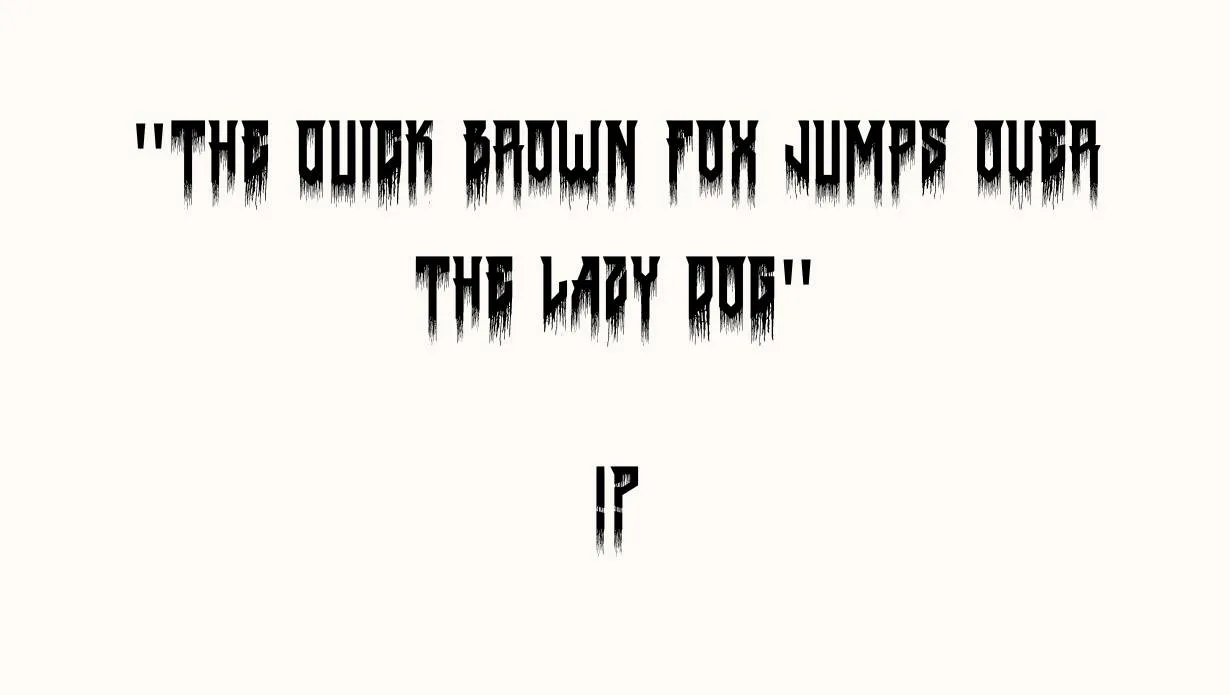
The Death to Metal font is reminiscent of a rebellious anthem for your words. Its bold and edgy design makes it perfect for creating eye-catching heavy metal band logos, making posters for rock concerts, or infusing a rebellious touch into alternative lifestyle brands.
With a slightly condensed width and heavyweight, this font demands attention, making it perfect for projects that require a fierce and daring aesthetic. Imagine using the Death to Metal font for a tattoo artist’s business card, infusing your branding with the raw energy of rebellious expression.